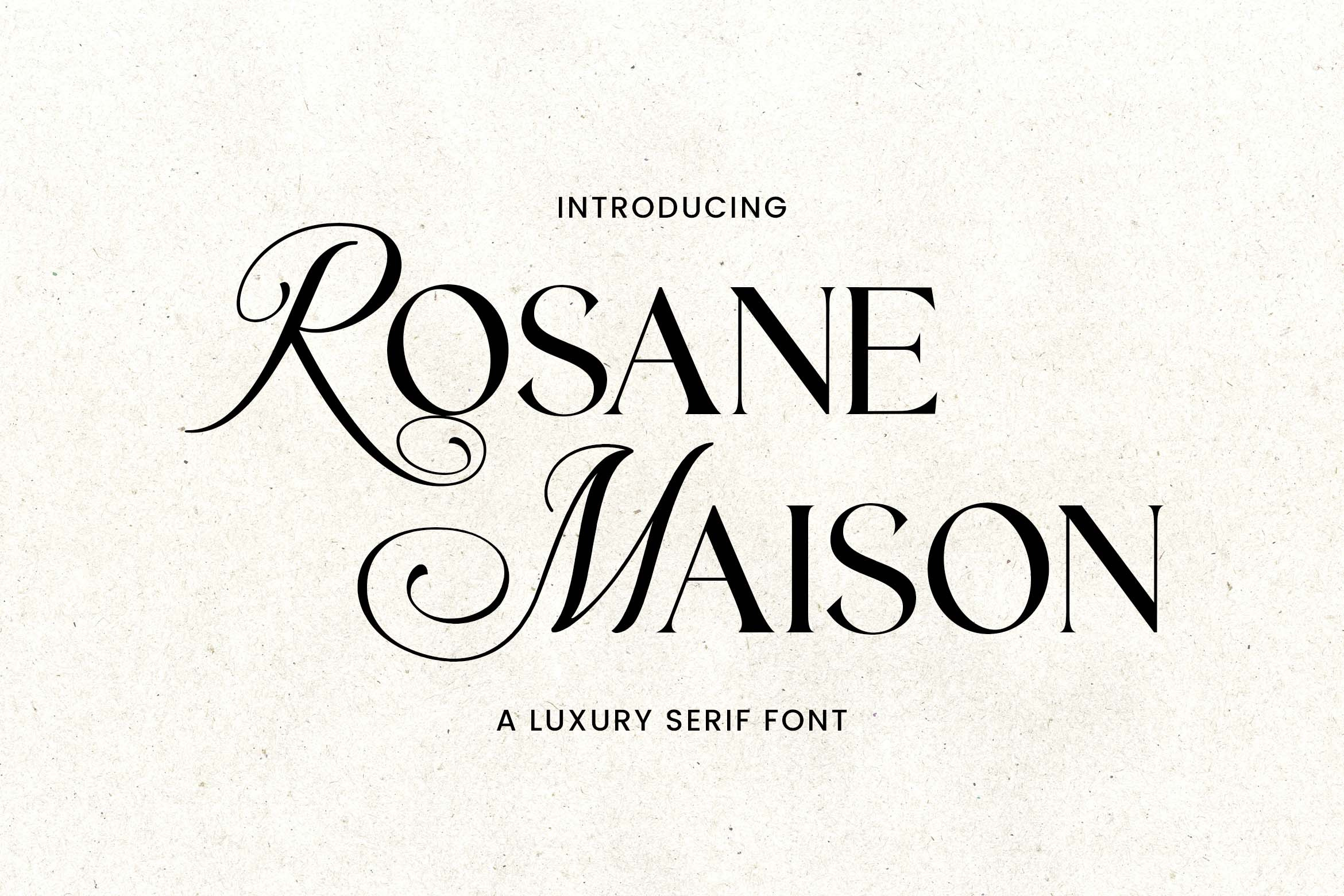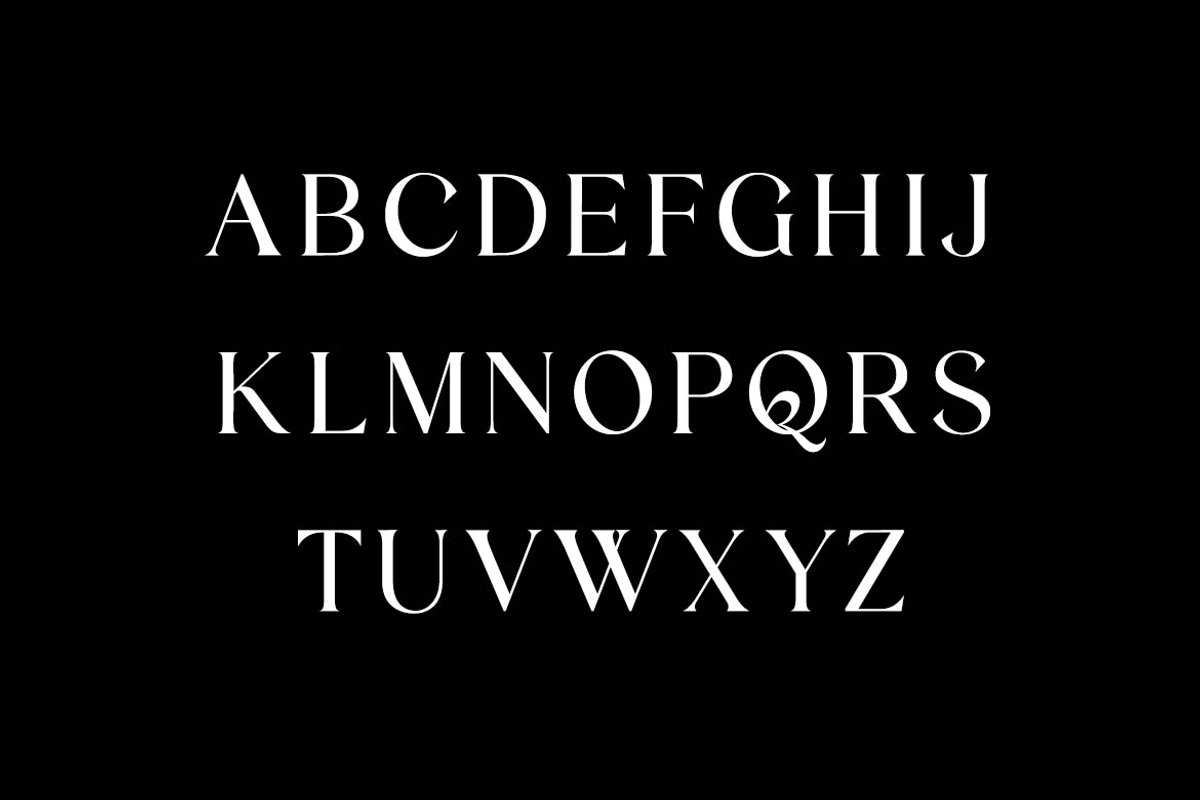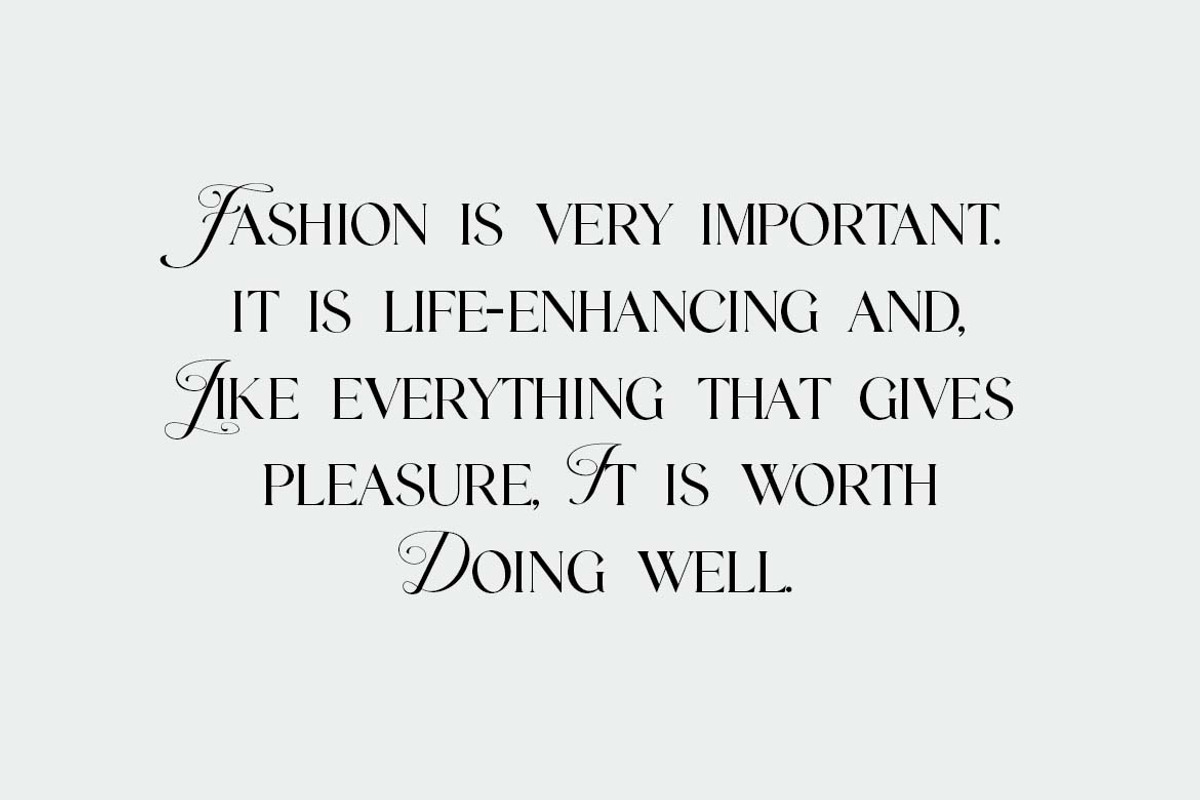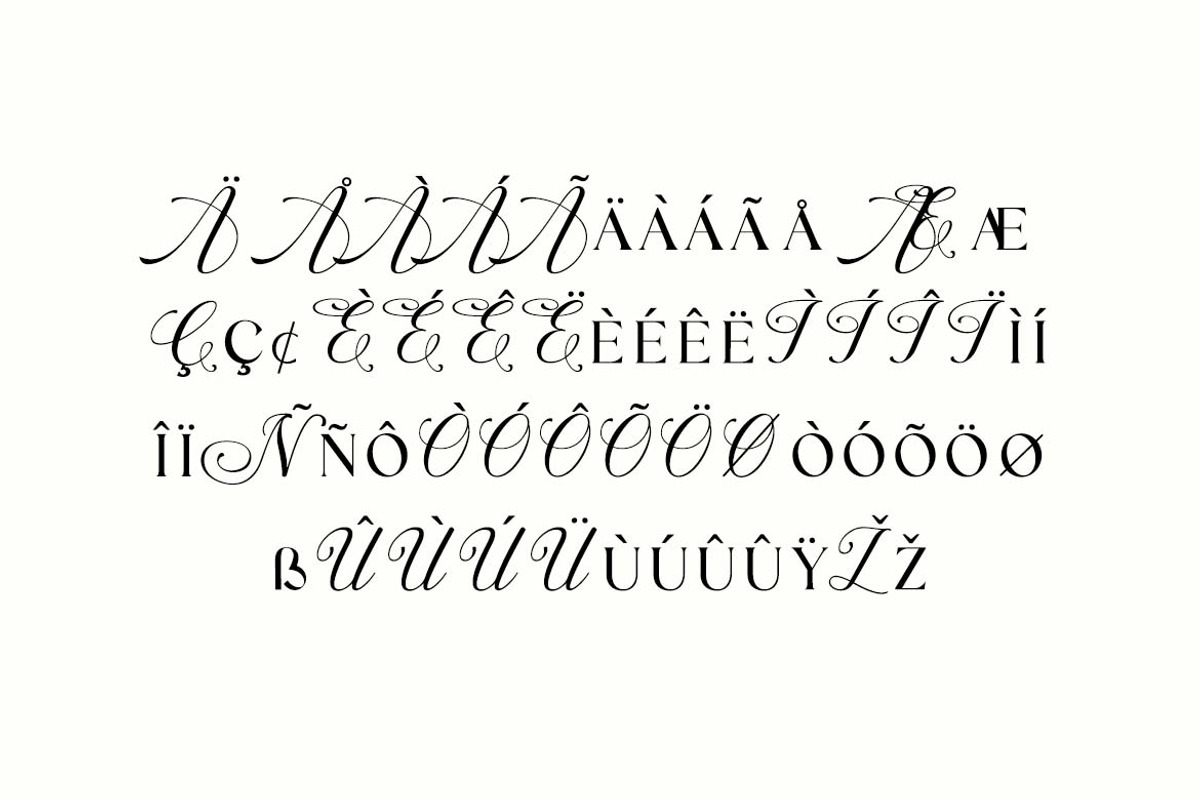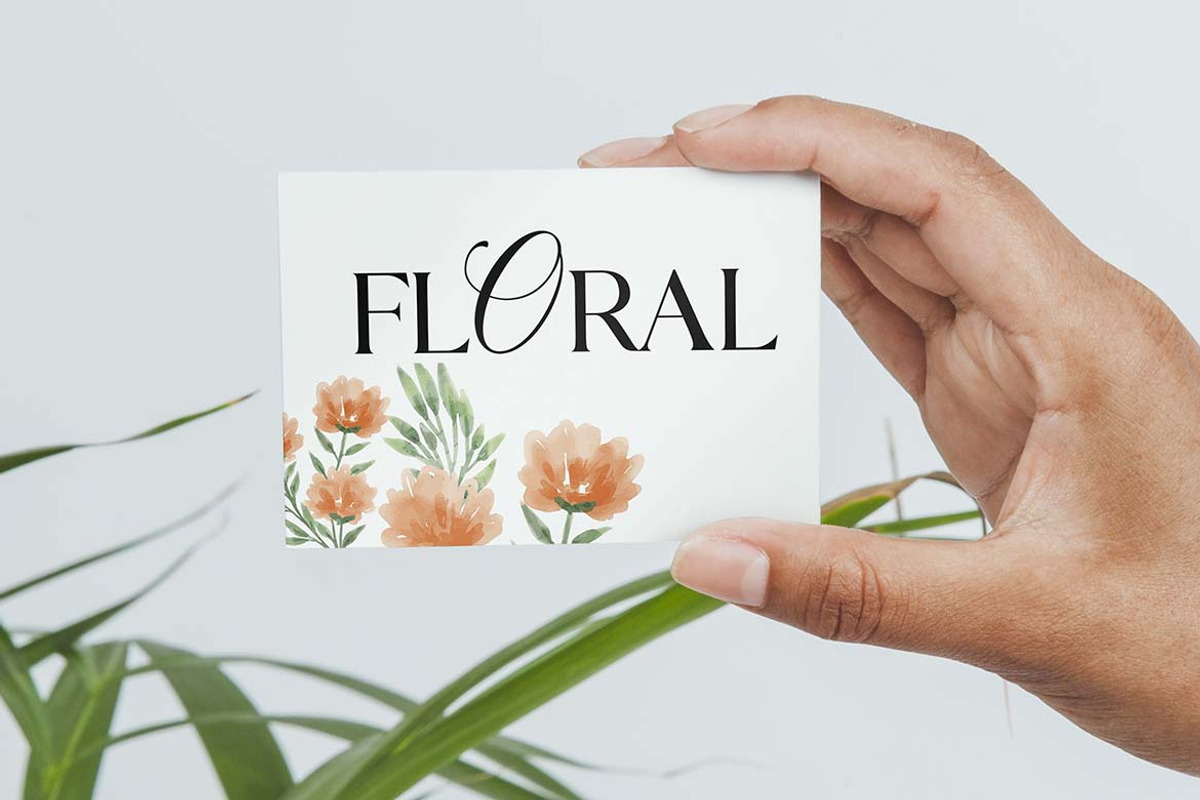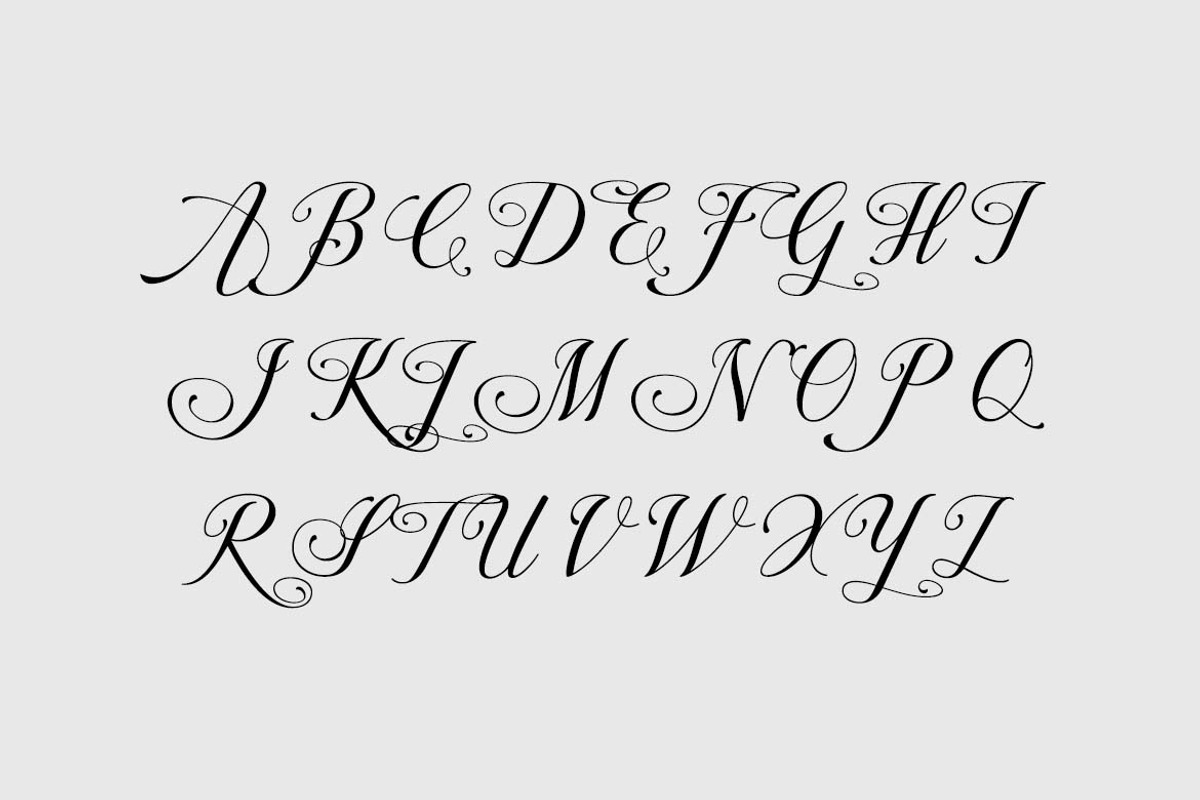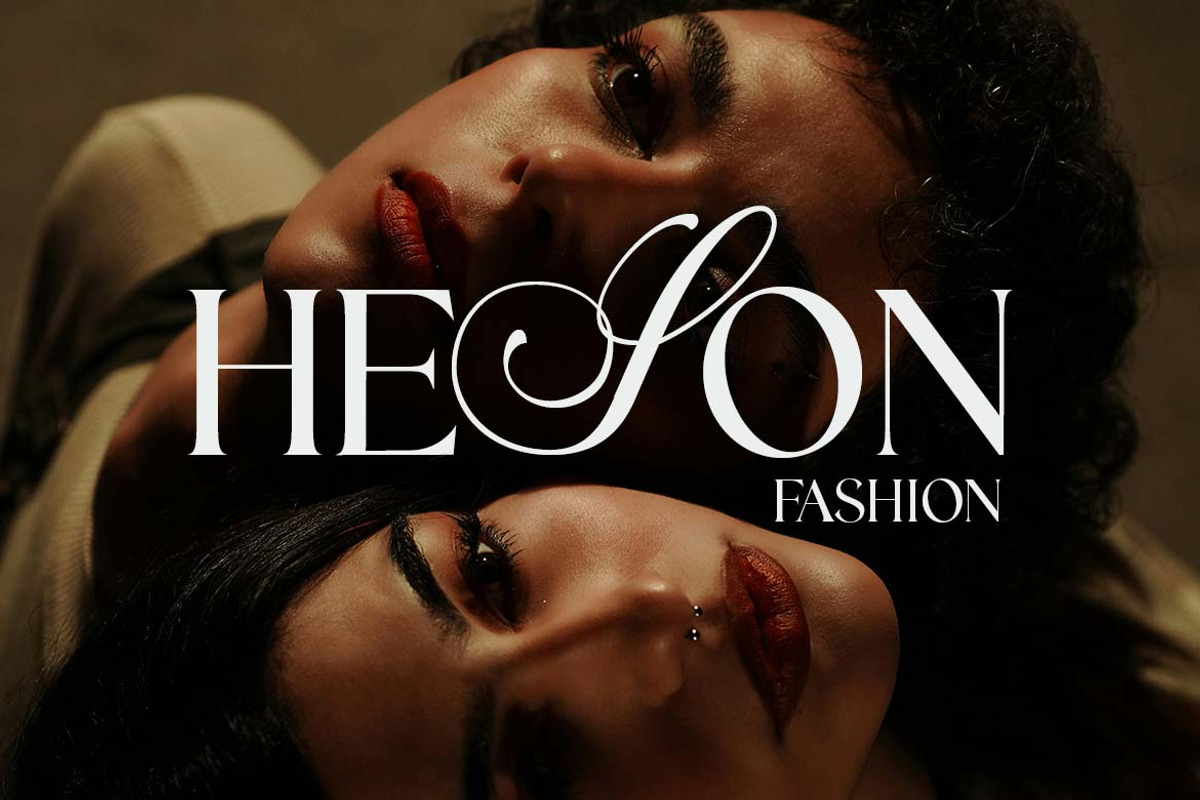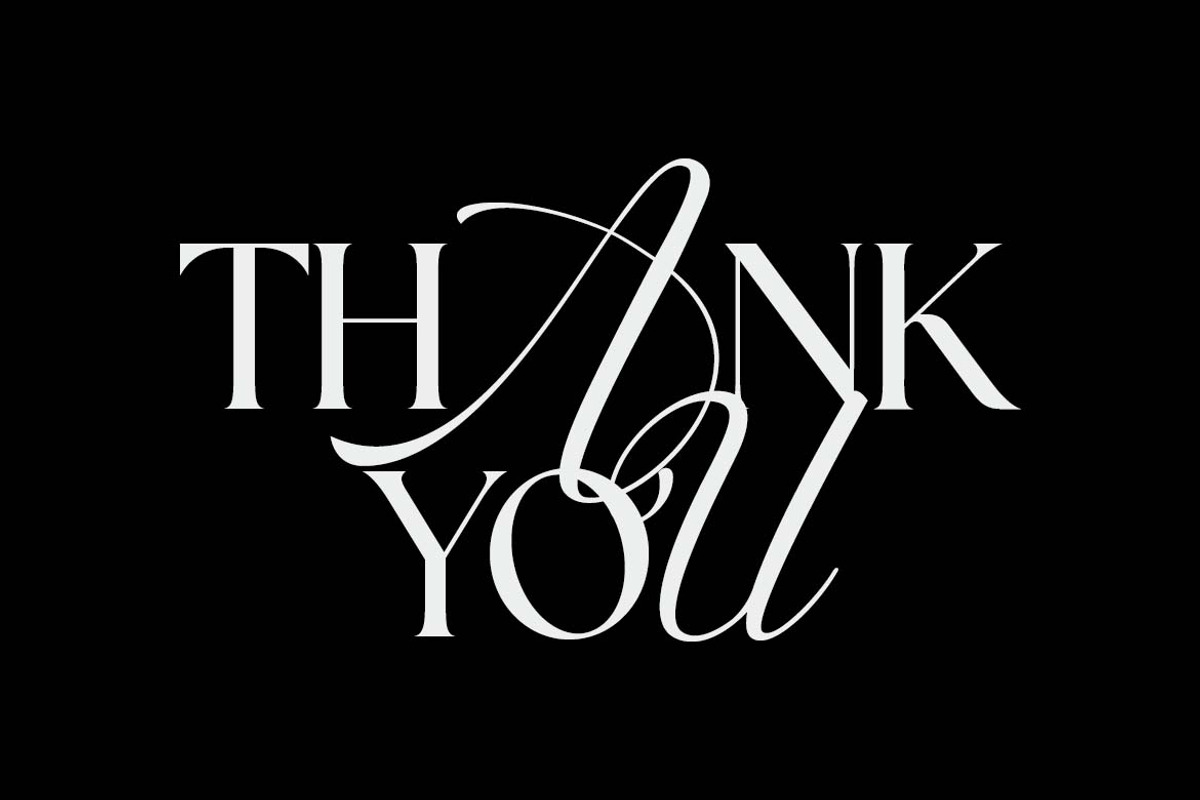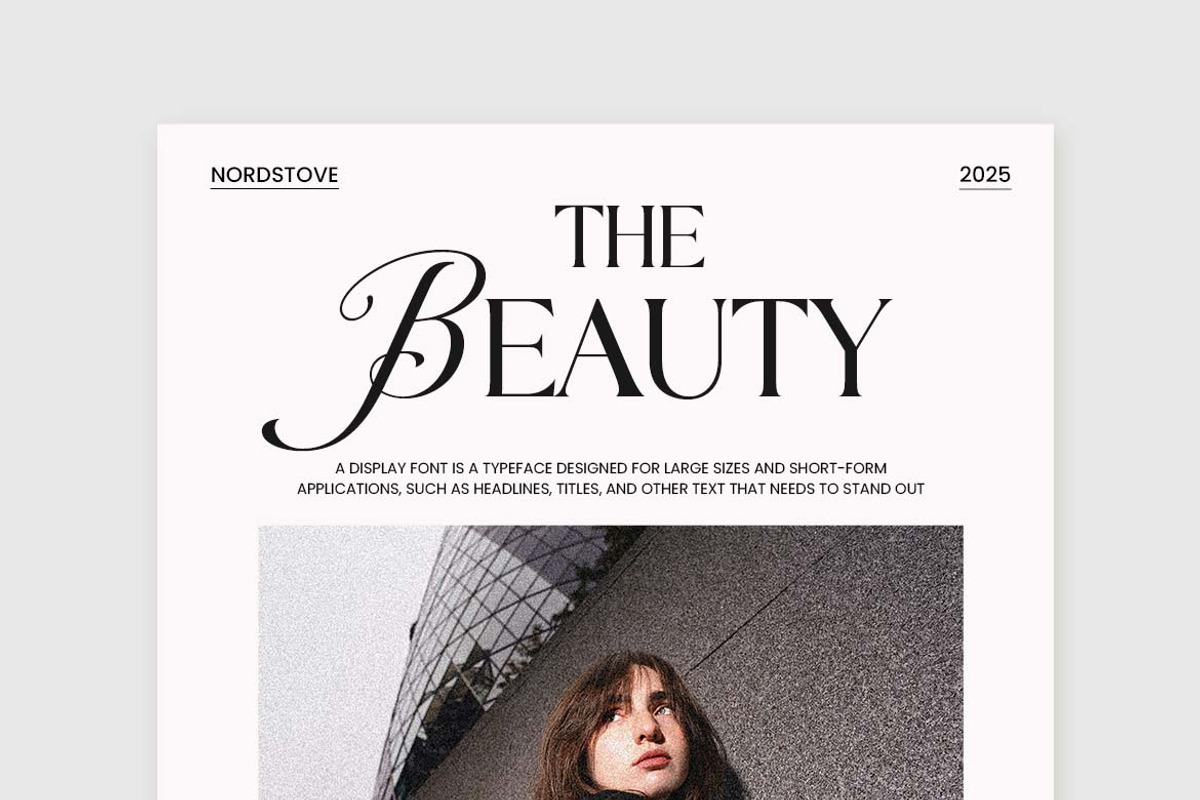
Rosane Maison Luxury Serif Font
Rosane Maison Luxury Serif Font. The modern display font feels beautiful classy, elegant, and stylish. This font is ideally suited for a wide variety of projects, such as signature, stationery, logo, wedding, typography quotes, magazine or book covers, website headers, branding, and more. Also, fashion-related branding or editorial design displays both masculine and feminine qualities.